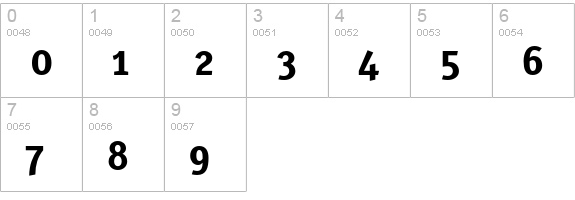
Karbid-Bold is a strong, high-contrast variant in the Karbid typeface family \xE2\x80\x94 well suited to headlines, attention-grabbing titles, and strong calls-to-action.
Karbid-Bold is a visually striking font that exudes power and confidence. With its bold and commanding presence, this font is perfect for making a bold statement in any design project. Its strong and sturdy letterforms are meticulously crafted to captivate the attention of viewers and leave a lasting impression. Karbid-Bold is designed with a unique combination of sharp angles and smooth curves, creating a harmonious balance that is both modern and timeless. This font is versatile and can be used in a variety of design applications, from headlines and logos to posters and signage. Its bold weight ensures maximum impact, making it ideal for capturing attention and conveying a strong message. But here's the best part - Karbid-Bold is free! That's right, this incredible font is freely available to download at FontsMarket.com. Now you can add a touch of boldness and sophistication to your designs without breaking the bank. Whether you're a professional designer or a passionate hobbyist, Karbid-Bold is a must-have addition to your font collection. So why wait? Download Karbid-Bold today and unleash the power of bold typography in your next project. With its free availability and exceptional design, this font is sure to elevate your designs to new heights. Don't miss out on this incredible opportunity - get Karbid-Bold and make a statement that can't be ignored.